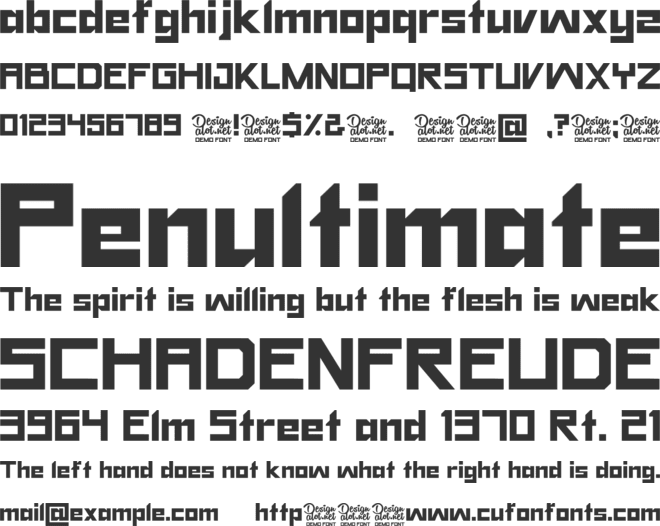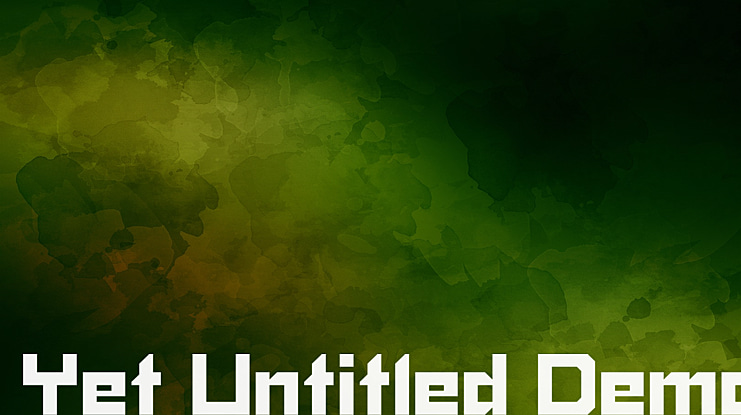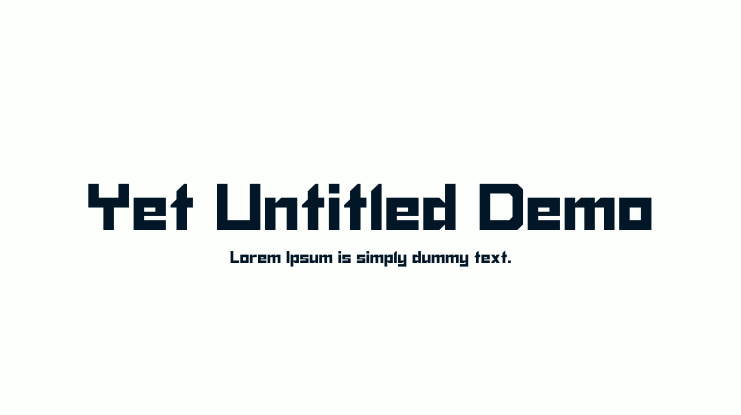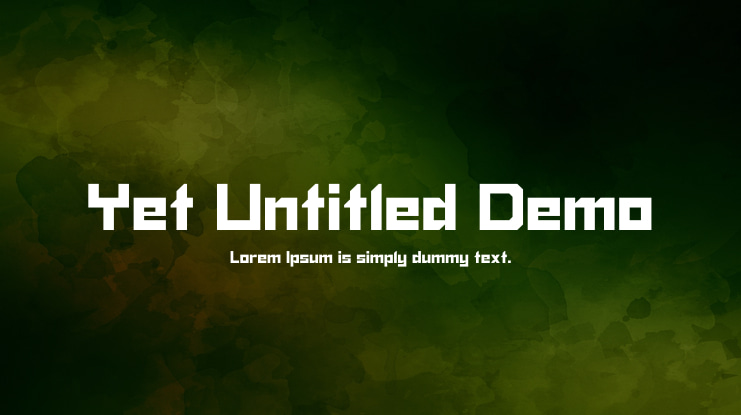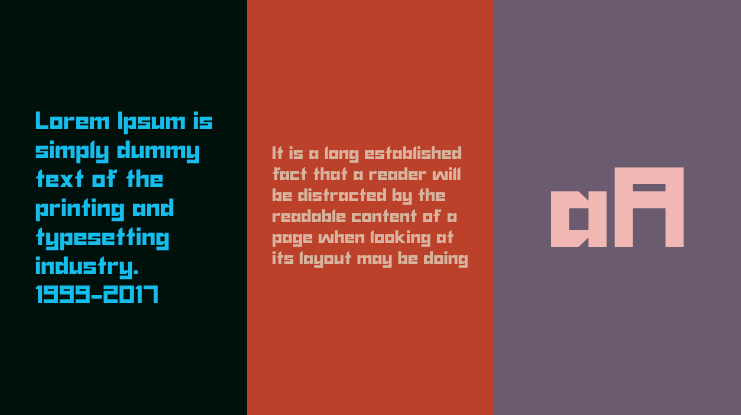
Yet Untitled Demo Font
It has a thick and bold style, comes with english alphabet, numerals and a couple of glyphs/punctuation marks. Ive worked a bit on kerning, but some letters might still have some mismatches. This font works well for regular and type based logo designs, headlines and different types of advertising materials.